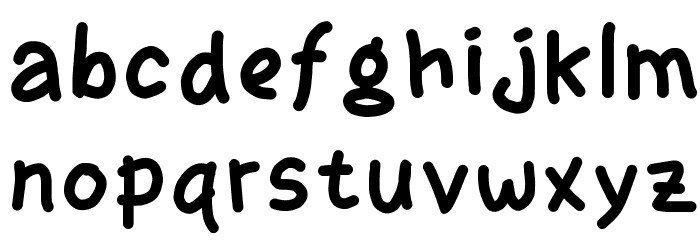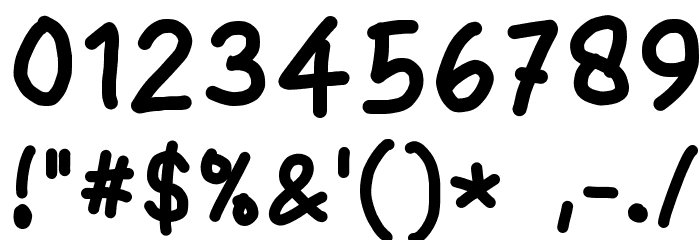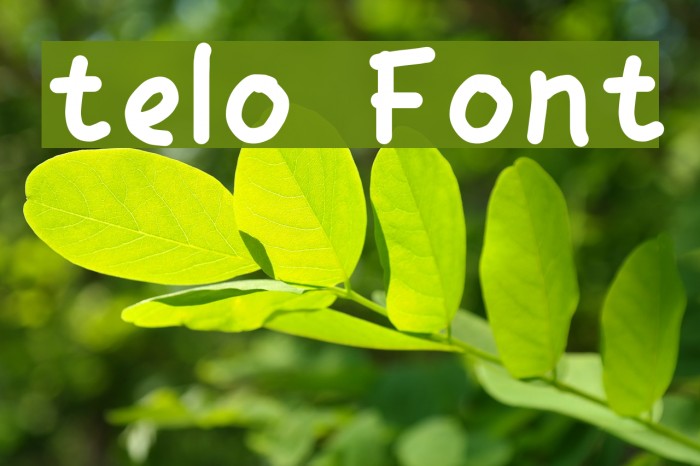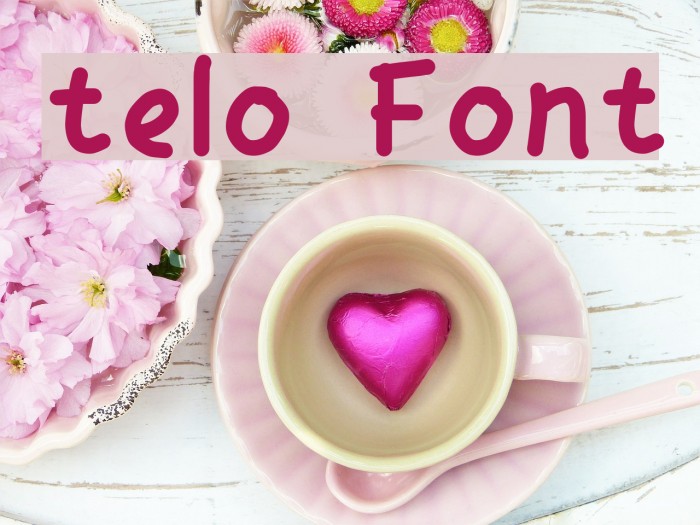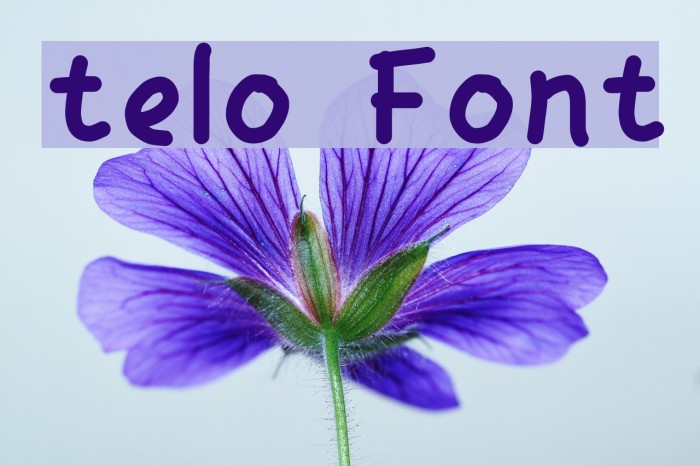
telo Font
This font features a playful and casual handwritten style, characterized by its bold and rounded letterforms. Each character appears as if it has been drawn with a marker, giving it a friendly and approachable appearance. The strokes are consistent in thickness, providing a uniform look across all characters. The uppercase and lowercase letters maintain a cohesive style, with slightly exaggerated curves and loops that enhance its informal aesthetic. Numbers and special characters are designed with the same playful touch, ensuring a harmonious overall appearance. This font is ideal for projects that require a personal and informal touch, such as children's books, greeting cards, or casual branding.
A playful, bold handwritten font with rounded letterforms.
- Proposed Projects: Ideal for children's books, greeting cards, casual branding, and playful designs.
- Overall Style: Casual, Playful
- Use Case: Headlines, Logos, Informal Text